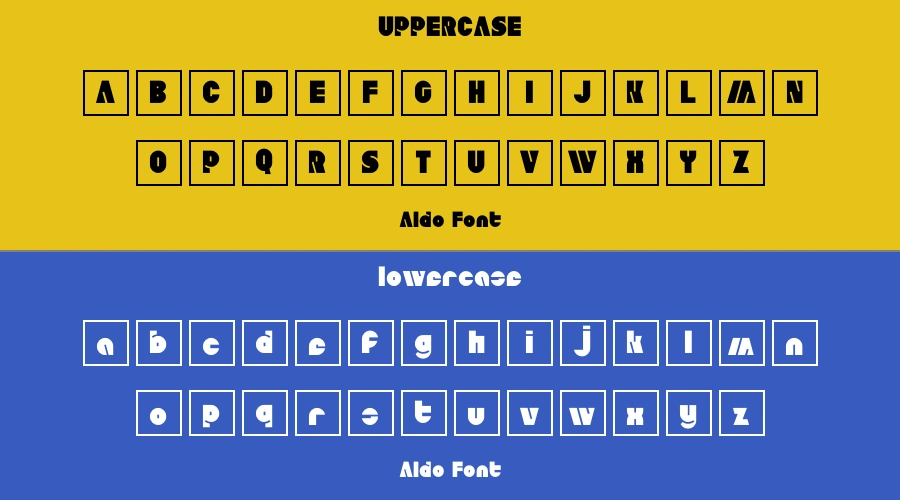
About Aldo Font
When typographic excellence matters most, Aldo Font delivers through its thoughtful blend of perfect spacing and adaptability. Specially crafted for product naming, it offers the sophistication and quality certification required for sophisticated design work. Every detail serves a purpose.
The character set showcases thoughtful details like confident strokes alongside functional classic proportions. This proves especially valuable in certification marks, where output consistency directly influences results. Particular attention was paid to aperture size and design lineage during development.